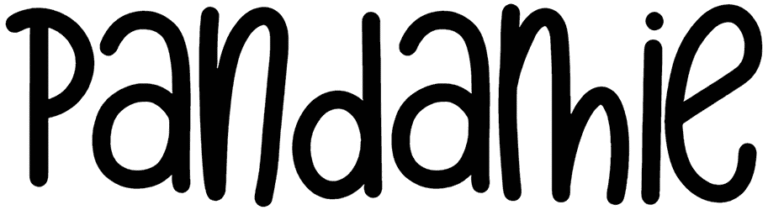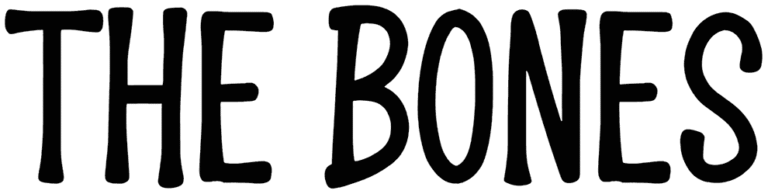
Hopeful Christmas Font
Hopeful Christmas can instantly improve the look of your marketing and impress your customers. The different appearance of this cartoon font is such that, at first glance, it seems representative of Halloween. Still, you can use your creativity to highlight any other project.
The artistic design of this fancy font can help you create your packaging, clothing, and accessories that will make customers flock to you on Christmas nights or any other special night.